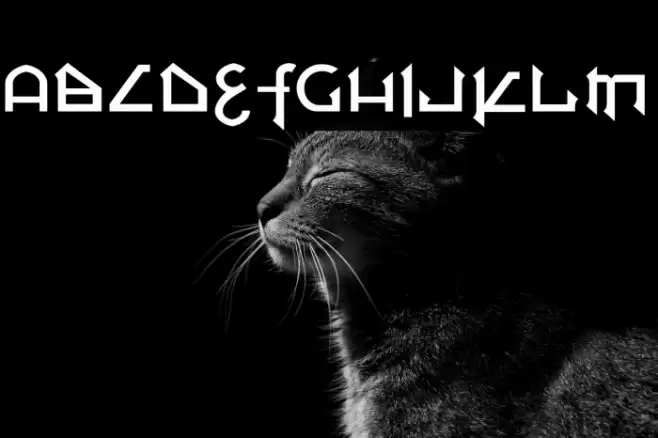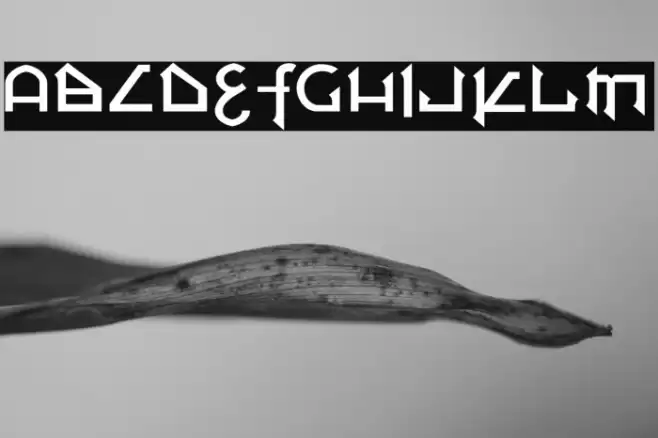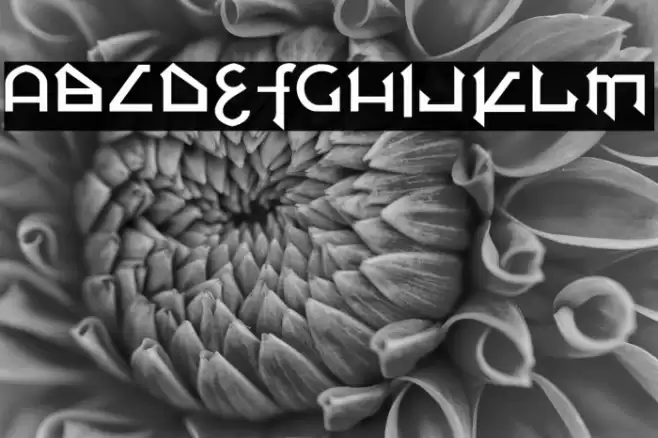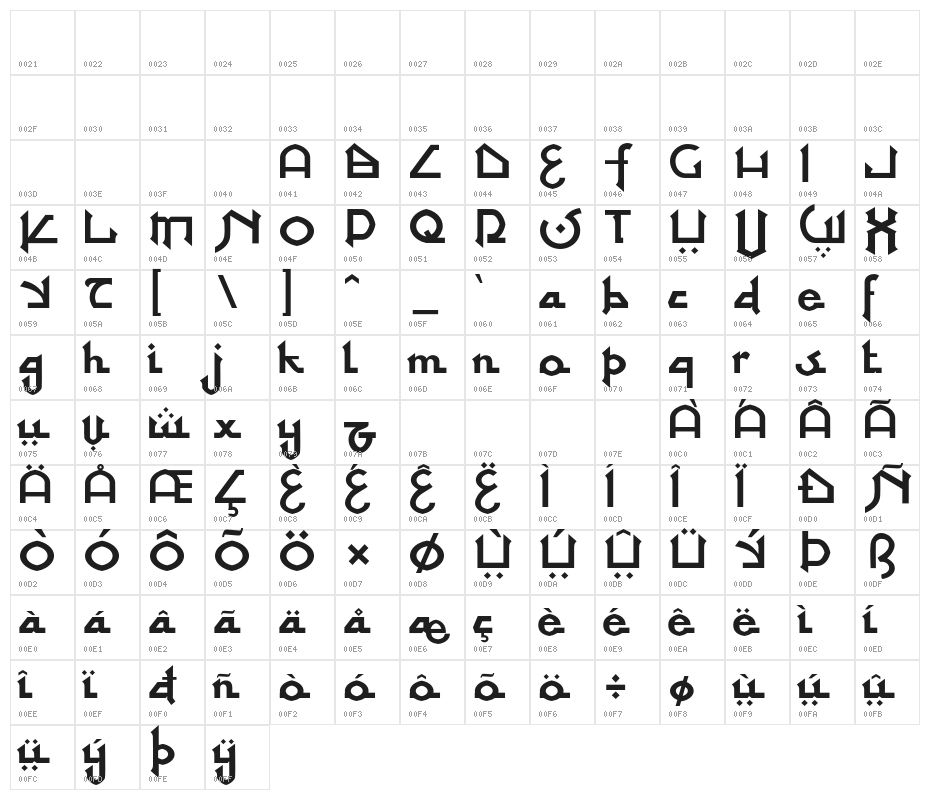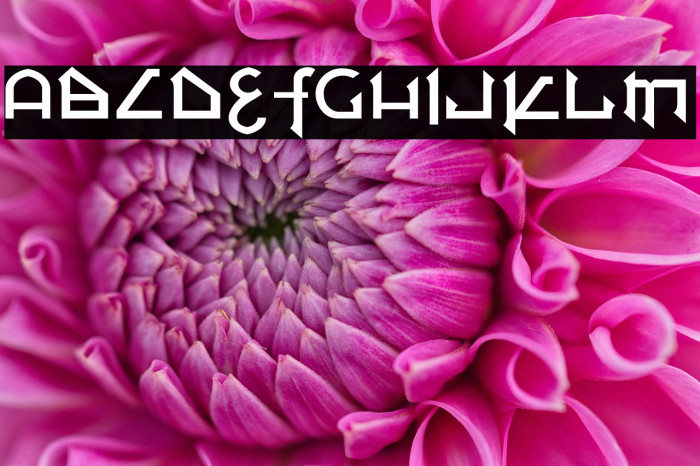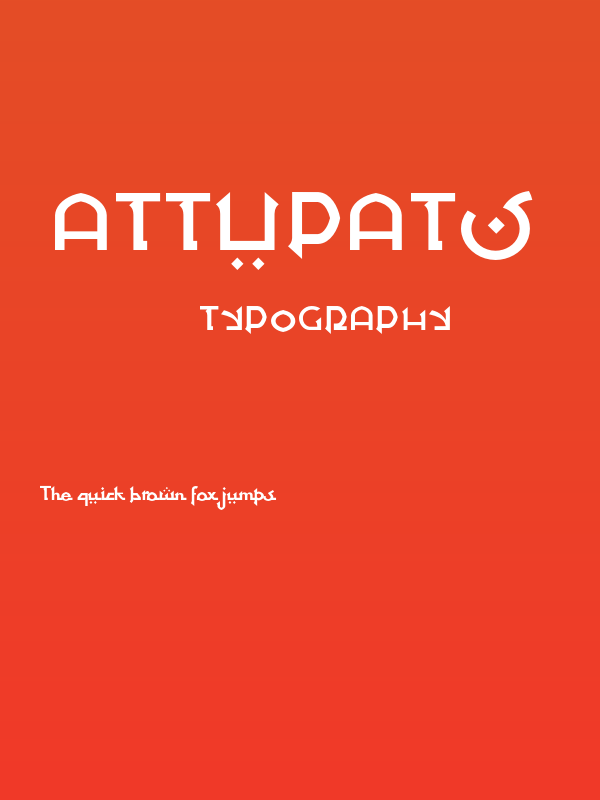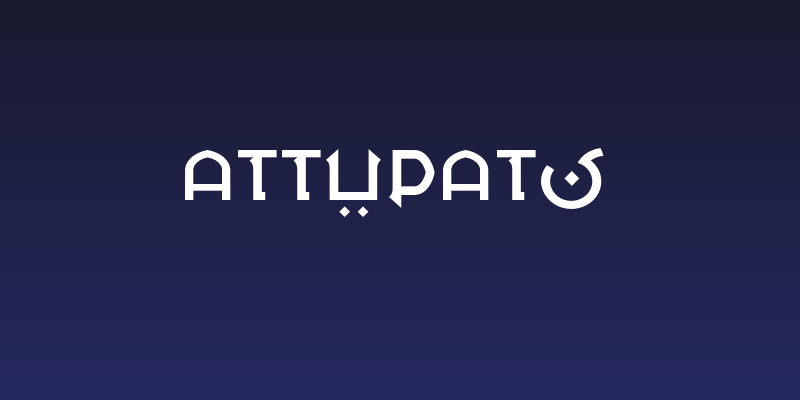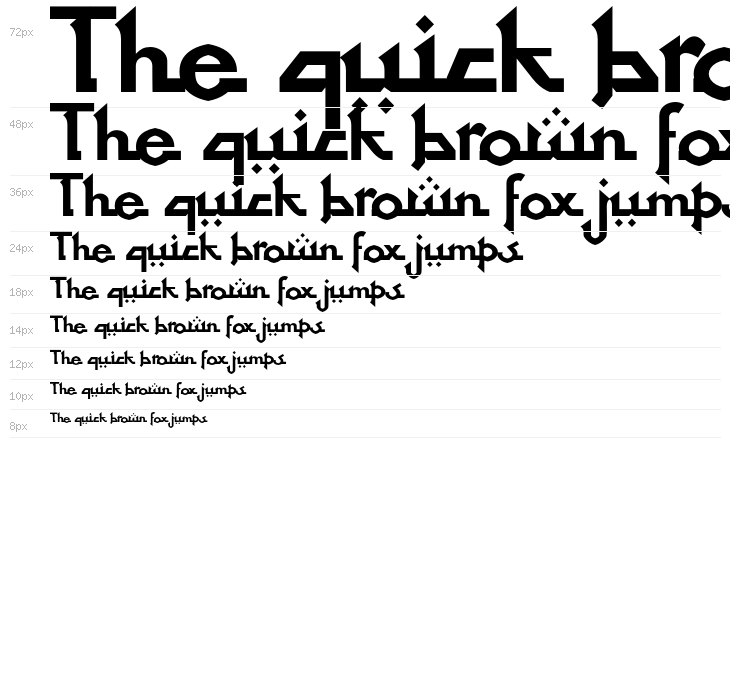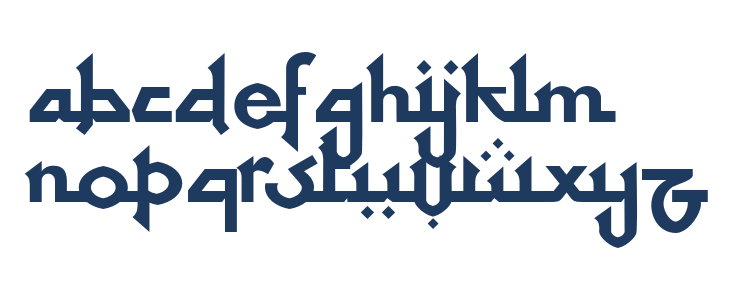
attupats Font
attupats Description
This font features a bold, angular design with a distinct geometric style. The characters are crafted with sharp edges and pointed terminals, giving it a futuristic and edgy appearance. The uppercase letters exhibit a strong presence with their wide, block-like forms, while the lowercase letters maintain a consistent style with slightly more curvature. The numbers and special characters follow the same design principles, ensuring uniformity across all glyphs. This font's unique aesthetic makes it stand out, ideal for projects that require a modern and striking visual impact.
A bold, angular font with a futuristic and geometric style from Uncategorized fonts.
- Proposed Projects: Ideal for sci-fi themed designs, video game titles, posters, and branding that requires a modern edge.
- Overall Style: Futuristic